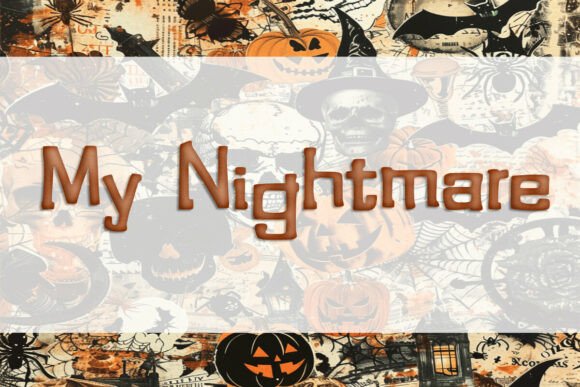
Introduction to My Nightmare Font
Immerse yourself in the captivating allure of the Nightmare Font, an idiosyncratic typeface designed to leave a lasting impression.
Excellent for adding unique flair to T-shirts and stickers or establishing an exclusive tone in branding and magazine layouts Its versatility extends across a plethora of platforms — seamlessly enhancing SVG files, greeting cards, and your beloved Cricut projects.
Key Features of My Nightmare Font